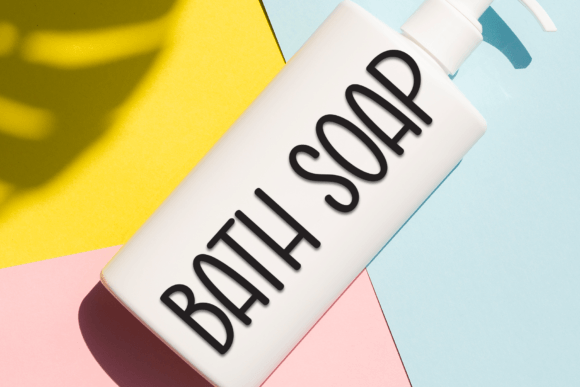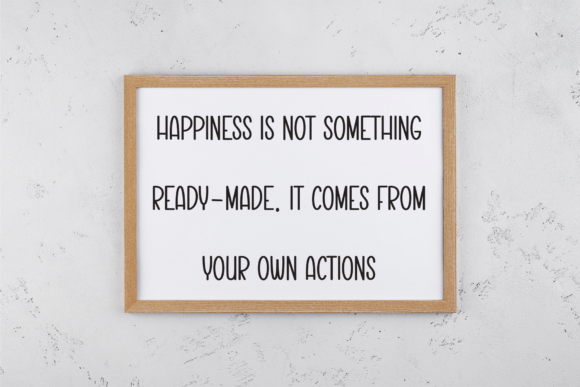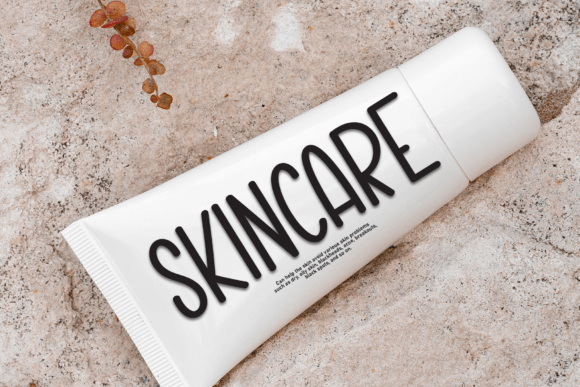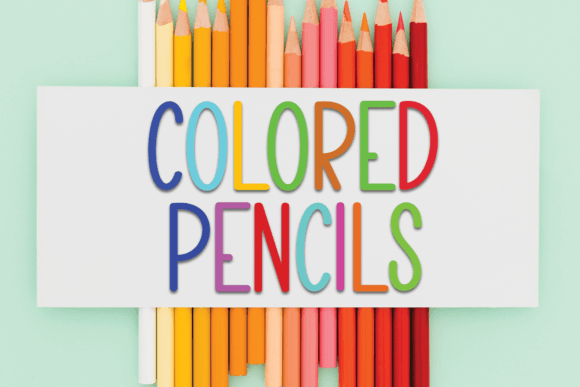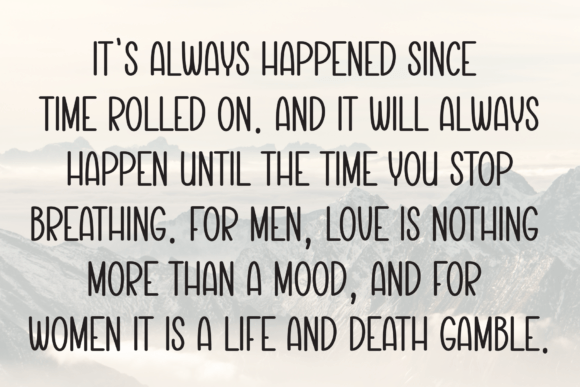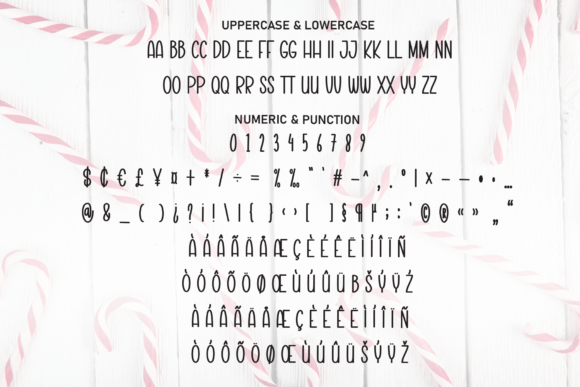
The Sweetest Holiday Font: A Deep Dive into Candy Christmas
It’s that time of the year again – the season for holiday designs, Christmas cards, and festive projects. As a designer, I’m always on the lookout for the perfect font to capture the cheerful and playful spirit of the holidays. Recently, I stumbled upon the delightful Candy Christmas font, and I just can’t get enough of it! 🎄
A Design Moment of Frustration and Joy
I recall working on a Christmas project last year, struggling to find a font that embodied the fun and casual vibe I was going for. My client wanted something that felt festive, yet approachable. After hours of scouring font websites and trying out various options, I was about to give up. That’s when I discovered Candy Christmas, and it was love at first sight! ❤️
An Honest Review of Candy Christmas
- ✨ The tall, playful handwritten style is perfect for grabbing attention and adding a touch of whimsy to any design.
- ✅ The font’s festive and cheerful feel makes it an excellent choice for holiday designs, Christmas cards, and themed projects.
- 👍 It’s incredibly versatile and can be used for titles, headings, and even body text.
- 🤔 Some characters, like the lowercase ‘g’ and ‘y’, might appear a bit cramped or uneven, but this can be easily adjusted with kerning and spacing.
- ⚠️ As with many script fonts, Candy Christmas might not be the best choice for very small text sizes or body text, as it can become difficult to read.
The Designer Inspiration Behind Candy Christmas
Imagine a snowy winter evening, surrounded by twinkling lights, hot chocolate, and a sprinkle of magic. That’s what inspired the designer to create Candy Christmas – a font that’s as sweet as the holiday season itself. With its playful, handwritten style and festive feel, Candy Christmas is sure to bring joy to any design project.
Q: Is Candy Christmas suitable for body text?
A: While Candy Christmas is a beautiful font, it’s best suited for titles, headings, and short paragraphs. For longer body text, consider a more readable font.
Q: Does Candy Christmas support non-English characters?
A: Yes, Candy Christmas supports a range of non-English characters, making it suitable for international projects and designs.